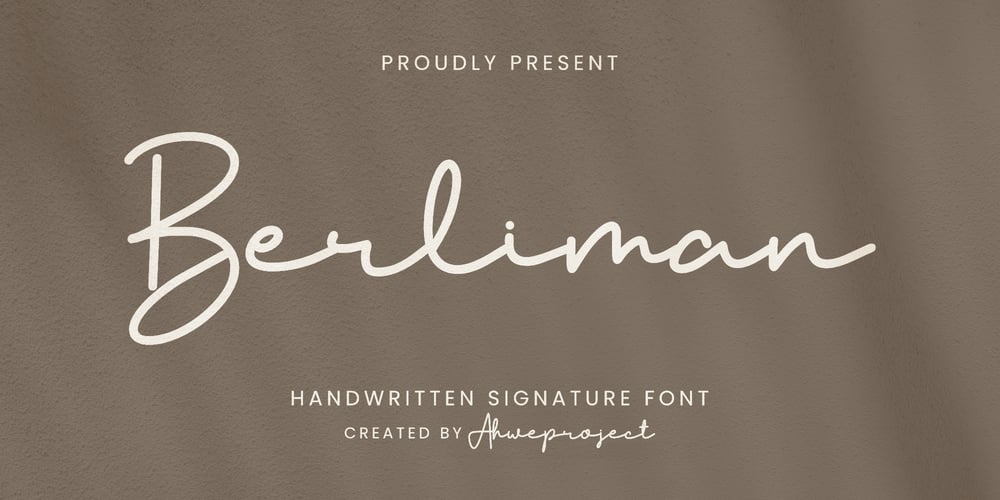
Berliman
Berliman font
Berliman Font Family was designed by Dida Ahluddin and published by ahweproject. Berliman contains 3 styles and family package options. Berliman is a signature script typeface specially made with a natural handwritten style. It is perfect for branding projects, logos, wedding designs, social media posts, advertisements, product packaging, product designs, labels, photography, watermarks, invitations, stationery and any projects that need handwriting taste.